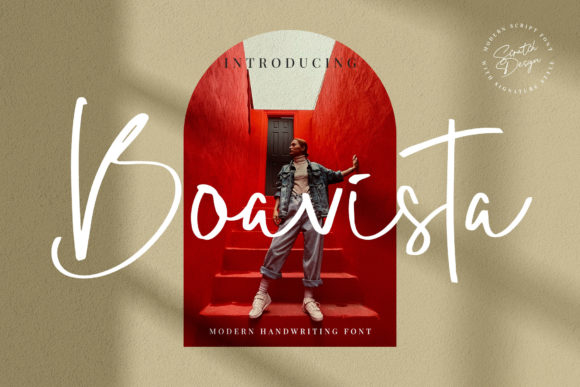
Unleash the Charm: Boavista Font - A Masterpiece of Elegance
Welcome to the realm of sophistication, where your designs will dance with grace and leave an imprint of timeless beauty. Introducing the Boavista Font, a script font that personifies elegance and charm, enchanting your creations with its alluring curves and sweeping strokes.
Step into a world of creativity, where Boavista Font transforms your words into stunning masterpieces. This exquisite font is meticulously handcrafted to capture the essence of handwritten beauty, effortlessly adding a personal touch to your projects. Whether it's an intimate wedding invitation, a heartfelt thank-you card, or a captivating quote that speaks to the soul, Boavista Font will elevate your designs to new heights of artistry.
With Boavista Font, you hold the key to unlocking a symphony of emotions. Its graceful lines evoke a sense of romance and tenderness, while its confident strokes exude an air of authority and sophistication. Each character dances across the page, telling a story of love, joy, and unwavering spirit.
Immerse yourself in the versatility of Boavista Font, as it seamlessly adapts to a myriad of creative endeavors. From enchanting logos that leave a lasting impression to business cards that exude professionalism, Boavista Font is your trusted companion in the realm of design. Unleash your imagination and watch as your creations flourish with a touch of Boavista's magic.
But it's not just about aesthetics; Boavista Font is a practical choice for online signatures. Its distinctive style adds a personal touch to your digital interactions, whether you're composing professional emails or engaging in lively online discussions. Make a statement with your signature, showcasing your unique personality and leaving a lasting impression on every recipient.
Join the ranks of those who have discovered the allure of Boavista Font. Let your designs blossom with a touch of elegance, and experience the joy of creating masterpieces that resonate with beauty, charm, and sophistication.